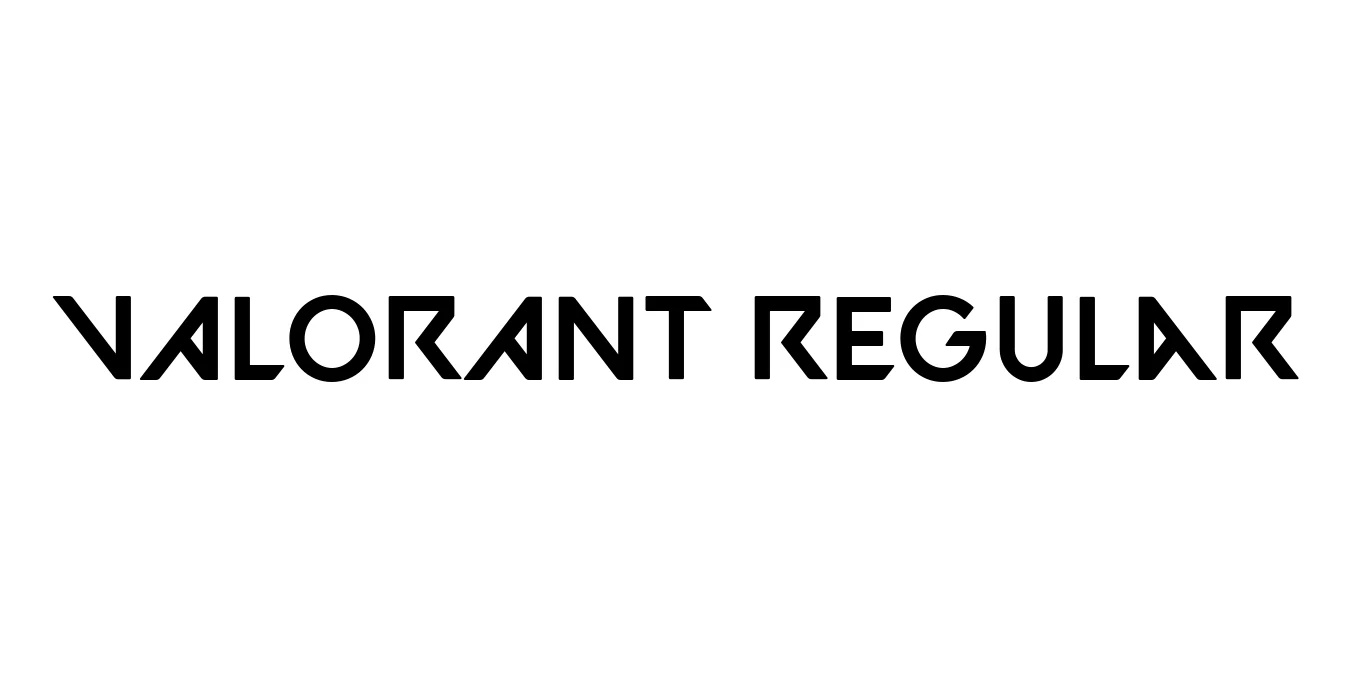
VALORANT Regular
Designed by Riot Games & Various Independent Creators
| Font Name | VALORANT |
| Category | Display / Gaming |
| Designer | Riot Games & Various Independent Creators |
| Similar Fonts | Tungsten, Industry, Druk, Agency FB |
The VALORANT Regular font is a bespoke display typeface inspired by the visual identity of the popular tactical shooter developed by Riot Games. Known for its sharp, angular cuts and distinct geometric construction, the font captures the essence of futuristic warfare and high-stakes competition. It was crafted to ensure brand consistency across the game's marketing materials, providing a look that is both modern and authoritative.
This typeface has become a staple in the gaming community, frequently used by content creators to emulate the game's official aesthetic. Its stencil-like qualities and wide proportions make it exceptionally effective for high-impact headlines and digital interfaces. While the original branding is proprietary, various fan-made versions have been developed to help designers achieve that iconic, sharp-edged look in their own creative projects.
VALORANT Regular Best Uses
Ideal for team logos, tournament brackets, and jersey designs.
Highly effective for YouTube and Twitch thumbnails to attract gamers.
Perfect for menu headers and HUD elements in sci-fi or action games.
Excellent for high-energy promotional materials and digital advertisements.